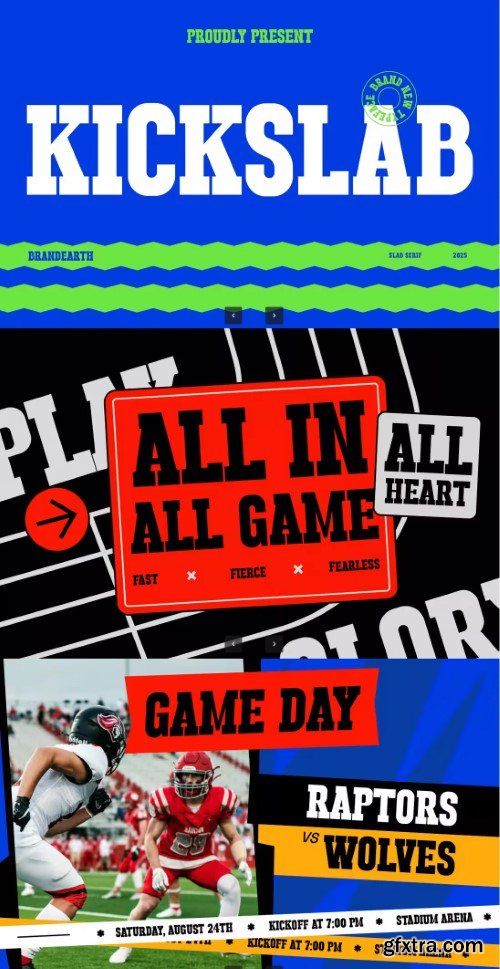
Kick Slab Serif Font
- Kick Slab is a bold and athletic slab serif font designed with strong blocky serifs, high-impact shapes, and confident character forms. Its energetic and powerful style makes it a great choice for sports branding, team logos, posters, editorial titles, and bold typographic compositions. The font includes uppercase letters, numerals, and punctuation, giving designers a versatile typeface for dynamic layouts. With its commanding presence, Kick Slab is suitable for game day graphics, motivational slogans, event banners, apparel design, and promotional campaigns that demand strength and visibility.